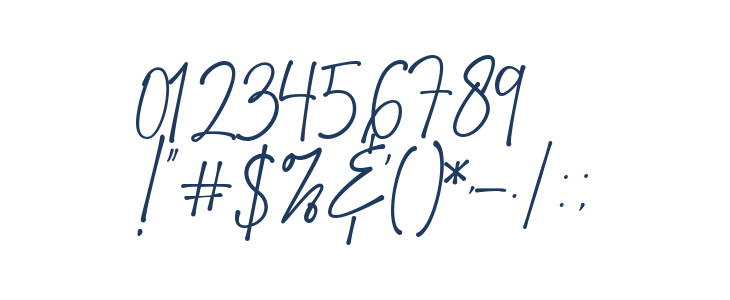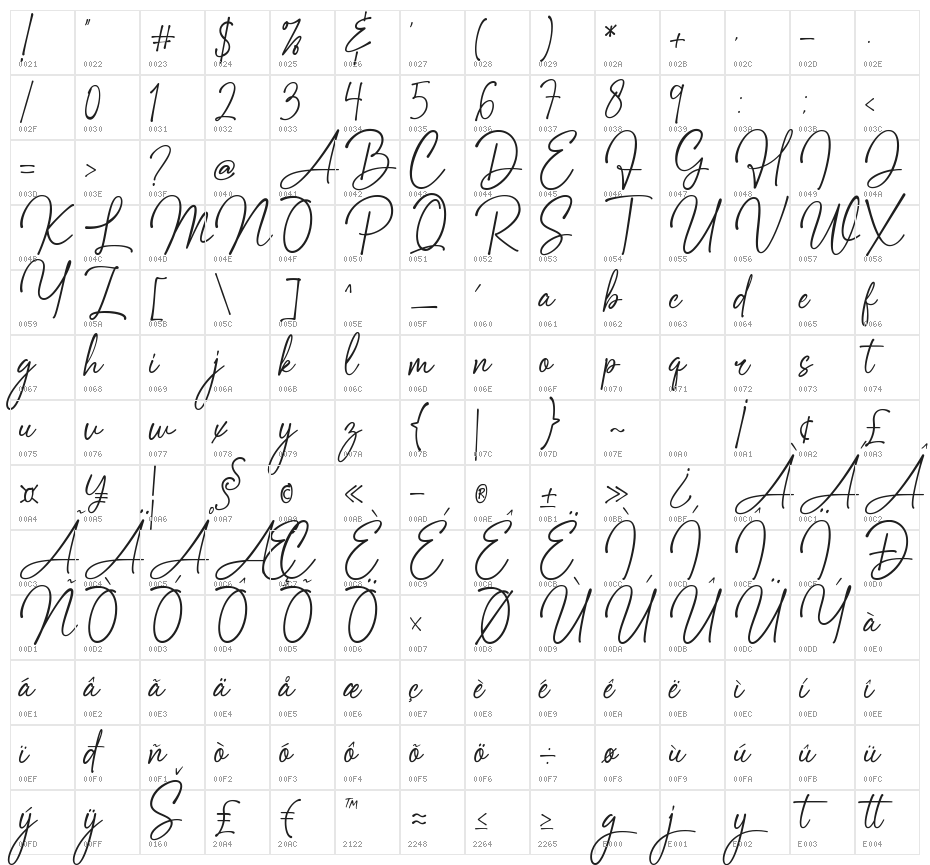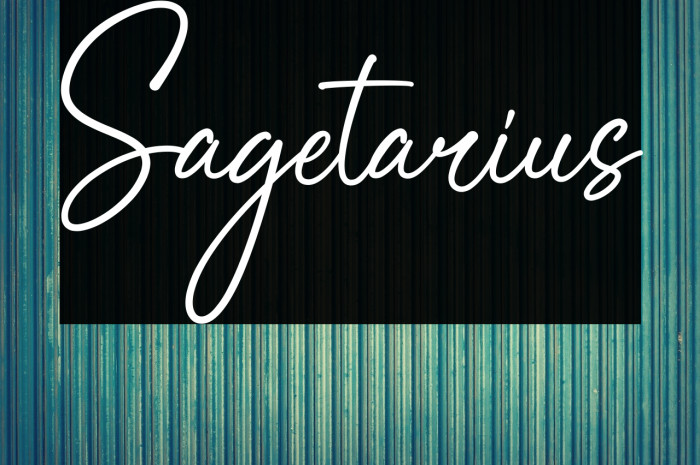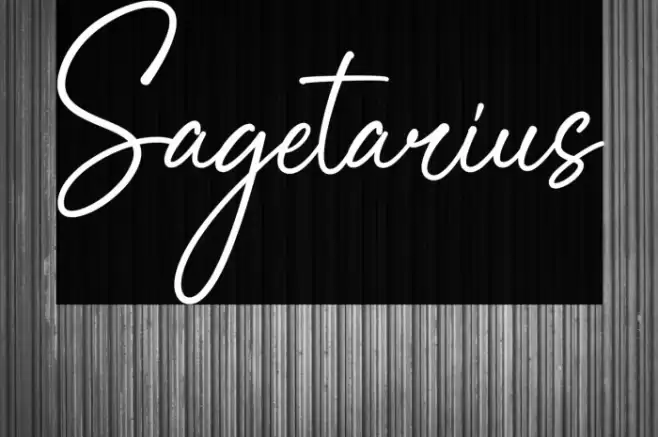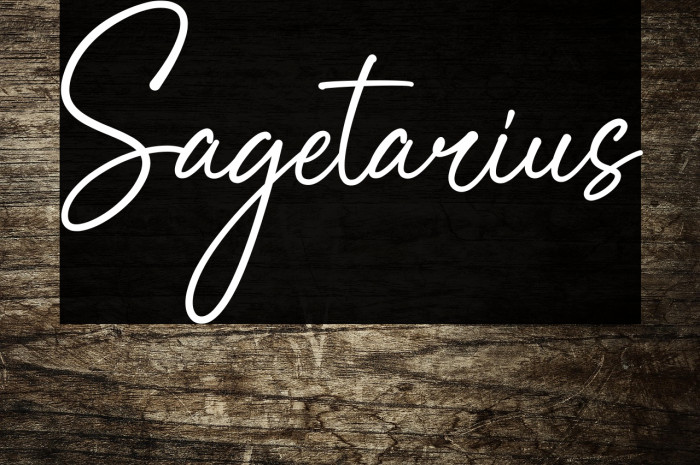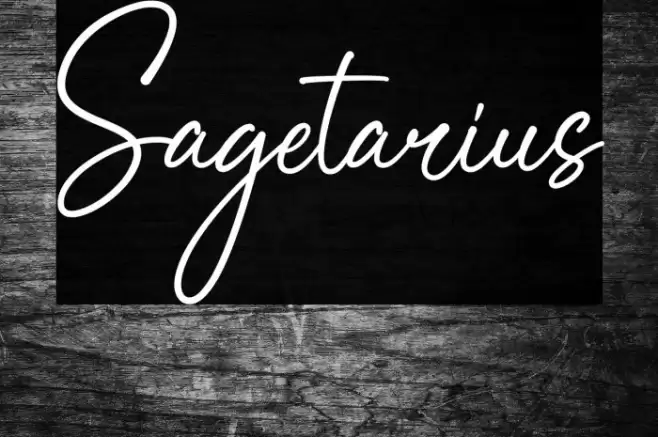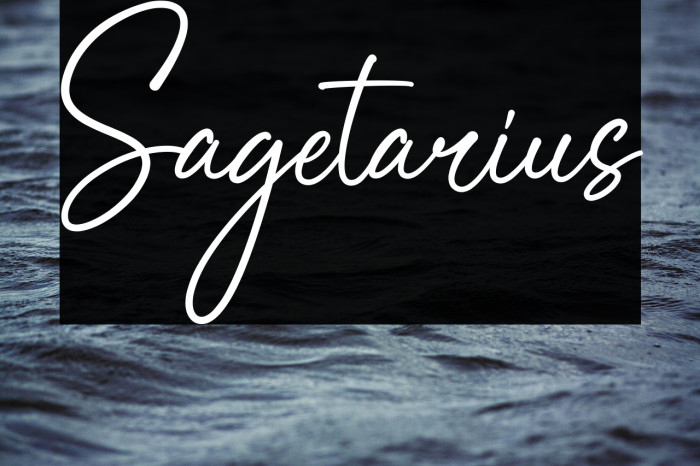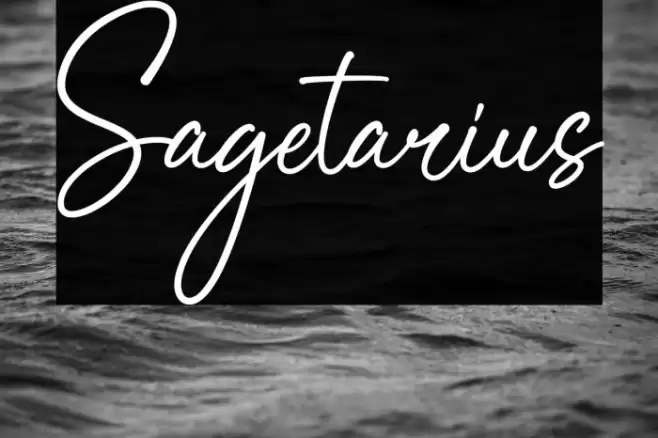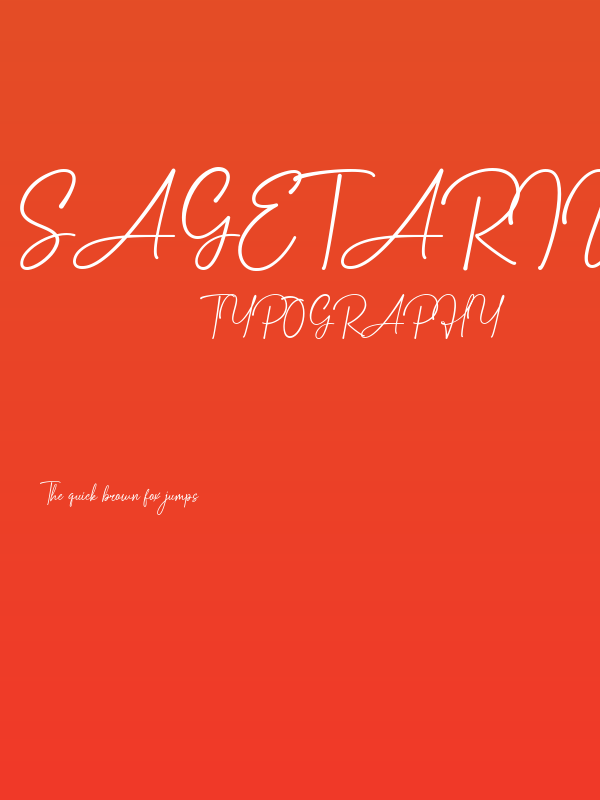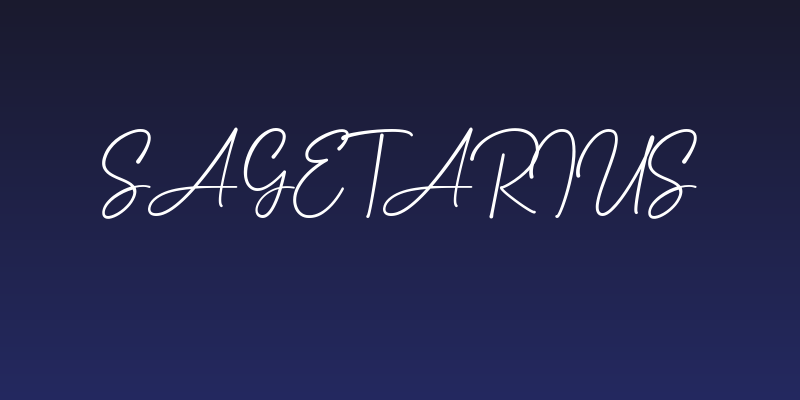
Sagetarius Font
Sagetarius Description
This font exudes a handwritten, cursive style with a fluid and elegant appearance. The uppercase letters are gracefully connected, while the lowercase letters maintain a consistent flow, enhancing readability. The numerals are distinct and align well with the overall script style. Special characters are seamlessly integrated, maintaining the font's cohesive look. The strokes are moderately thick, providing a balanced contrast that highlights its decorative nature. This font is perfect for projects that require a personal touch, such as invitations, greeting cards, or branding materials that aim to convey sophistication and warmth.
| Use Case | Invitations, Branding, Greeting Cards |
| Proposed Projects | Ideal for wedding invitations, personal branding, greeting cards, and elegant stationery. |